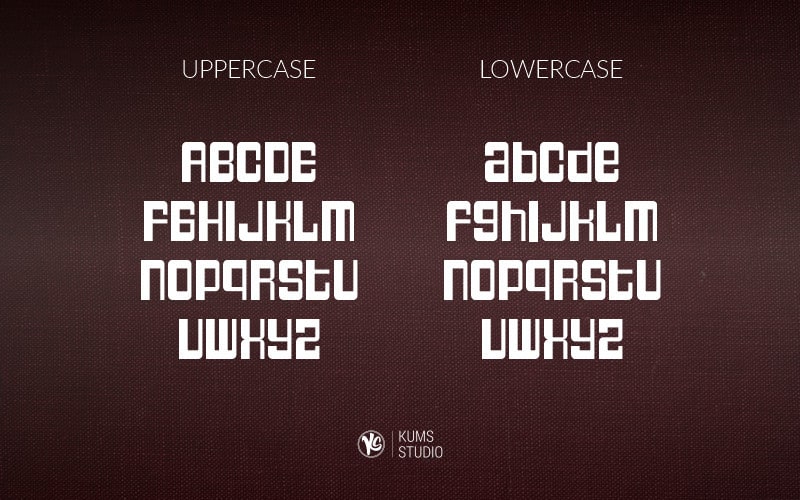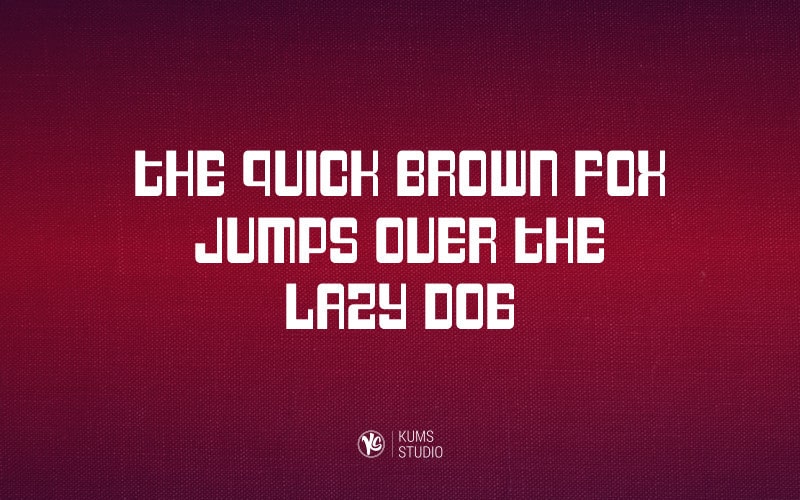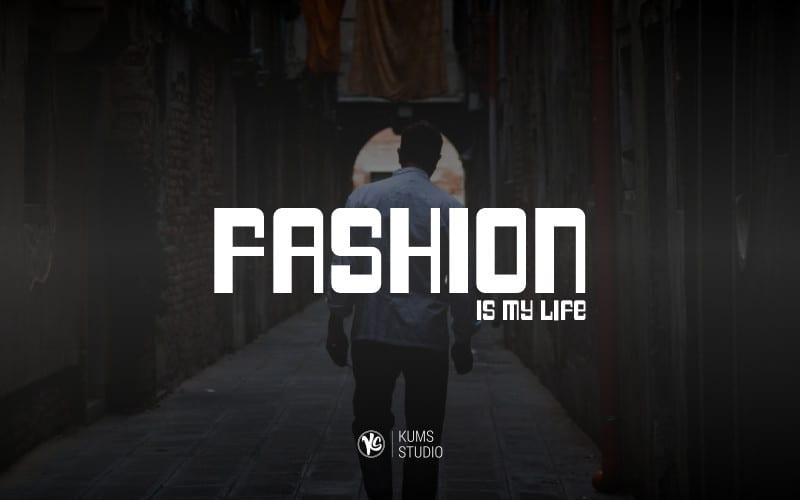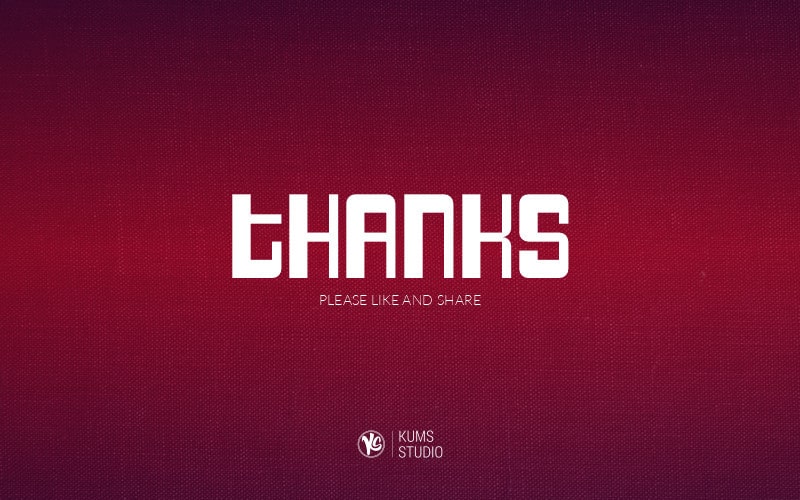
Breaked Display Font
Hello, Breaked Display Font is perfect for branding projects, logos, wedding designs, social media posts, advertising, product packaging, product design, labels, photography, watermarks, invitations, stationery, and any project that requires an impression of confidence.